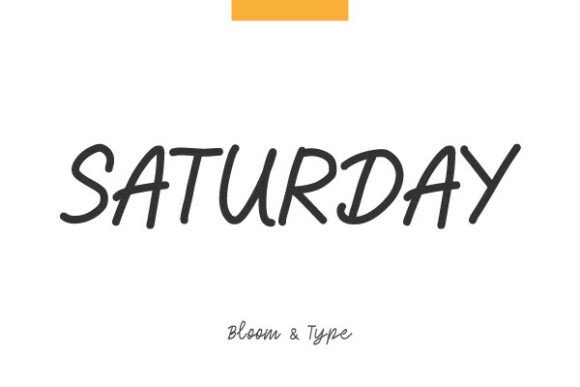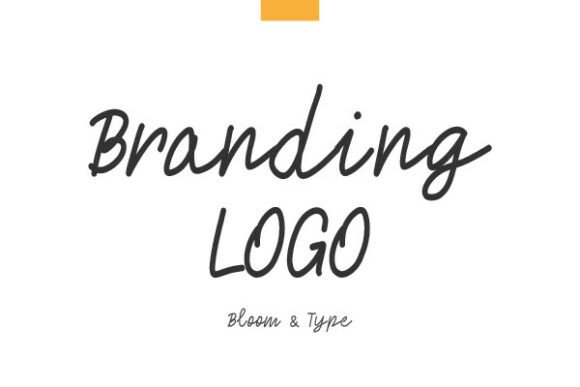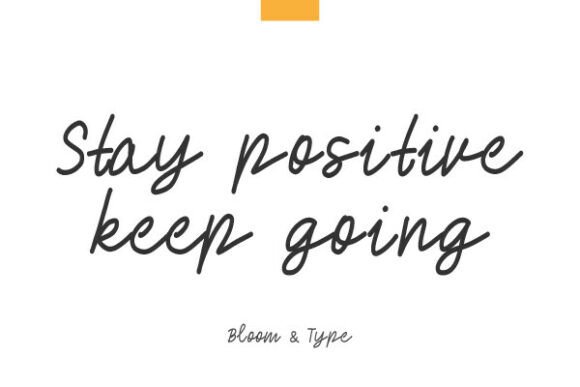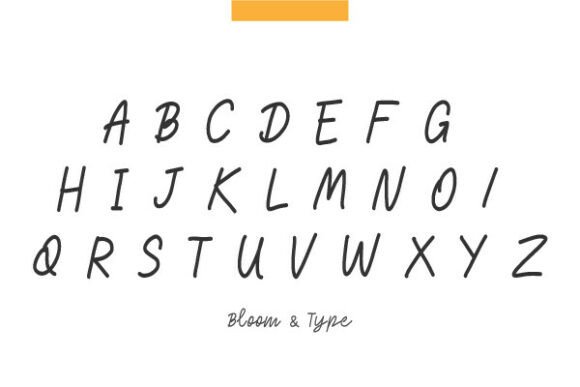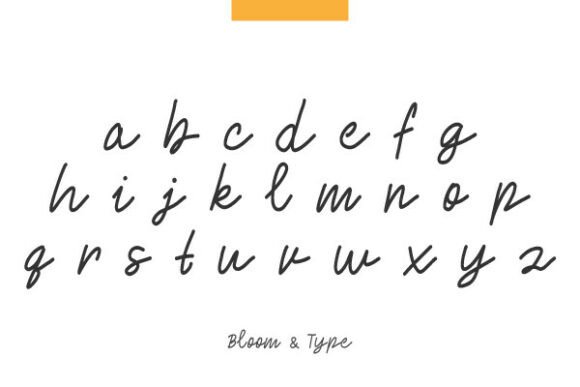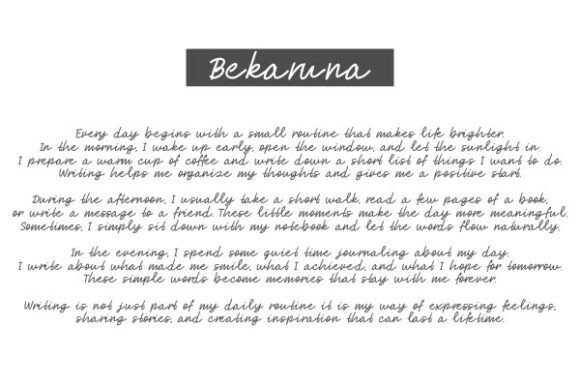
Bekaruna Font: Elevate Your Designs with a Touch of Elegance and Warmth
In the world of typography, a font can make or break the visual appeal of a design. For creatives looking for a typeface that exudes warmth, simplicity, and elegance, Bekaruna Font is an excellent choice. This beautifully handwritten font is designed to capture the perfect balance of personal touch and professional sophistication, making it ideal for a wide range of modern creative projects.
The Characteristics of Bekaruna Font
Bekaruna Font boasts smooth curves and natural strokes that give it a distinctly friendly and approachable feel. Its casual handwriting style is perfect for designers who want to add a human touch to their work without compromising on elegance. The font’s versatility makes it suitable for both digital and print use, allowing creatives to use it across various platforms and mediums.
Ideal Use Cases for Bekaruna Font
Bekaruna Font is incredibly versatile and can be used in a multitude of design projects. Here are some of the ideal use cases for this beautiful font:
- Branding & Logo Design: Create a lasting impression with a unique and memorable logo that captures the essence of your brand. Bekaruna Font’s elegant and simple design makes it perfect for crafting logos that are both sophisticated and approachable.
- Social Media Content: Stand out on social media with eye-catching graphics and posts that showcase your brand’s personality. Bekaruna Font’s friendly and engaging style is sure to resonate with your audience.
- Posters & Flyers: Add a touch of charm and character to your promotional materials with Bekaruna Font. Its elegant design ensures that your posters and flyers will grab attention and leave a lasting impression.
- Invitations & Greeting Cards: Make your invitations and greeting cards truly special with Bekaruna Font’s beautiful handwriting style. Perfect for weddings, birthdays, and other celebrations, this font adds a personal touch that will make your cards memorable.
- Packaging & Product Design: Elevate your product design with a font that exudes elegance and sophistication. Bekaruna Font is ideal for creating labels, packaging, and other product materials that require a touch of warmth and personality.
Why Choose Bekaruna Font?
Bekaruna Font offers a unique combination of characteristics that make it an excellent choice for designers and crafters. Here are some reasons why you should consider using Bekaruna Font in your next project:
- Unique and Memorable: Bekaruna Font’s elegant and simple design makes it stand out from more traditional typefaces. Its unique character ensures that your designs will be memorable and impactful.
- Versatile: Bekaruna Font is suitable for a wide range of design projects, from digital graphics to print materials. Its versatility makes it an excellent addition to any designer’s toolkit.
- Easy to Read: Despite its elegant design, Bekaruna Font remains easy to read, making it perfect for body text and other applications where legibility is crucial.
- High-Quality: Bekaruna Font is designed to deliver high-quality results, ensuring that your designs look professional and polished.
Bekaruna Font is a beautifully handwritten font that offers the perfect balance of warmth, simplicity, and elegance. Its smooth curves and natural strokes make it feel personal yet professional, making it ideal for modern creative projects. With its versatility, unique character, and high-quality design, Bekaruna Font is an excellent choice for designers and crafters looking to elevate their designs. Whether you’re working on branding, social media content, posters, invitations, or packaging, Bekaruna Font is sure to bring charm and character to your work.